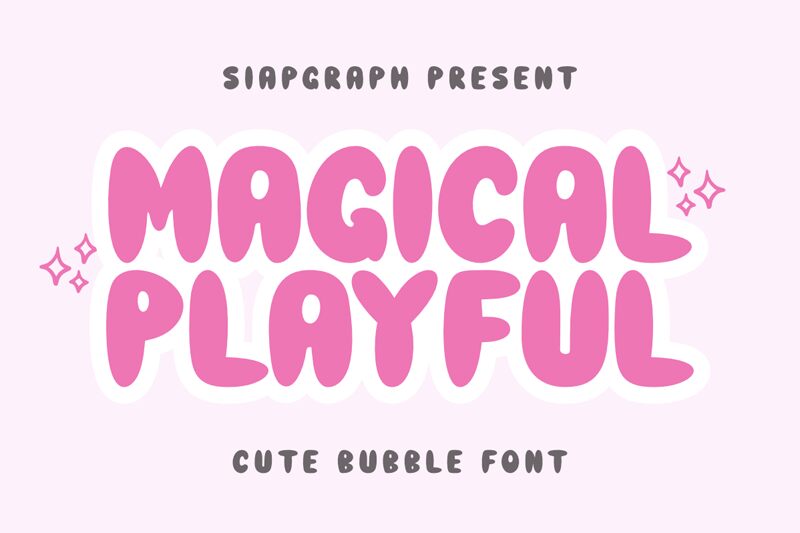
Magical Playful font by Siapgraph is a free cartoon font full of joyful energy that is almost toddler-like. This youthful font is intended to be gentle and friendly to the reader’s eye and is great for fun designs targeting a specific audience. The beautifully whimsical letters form a colorful, soft, and rounded playground of typography that is cheerful, inviting, and approachable.
Fairy-tale related projects are one of the possible platforms to use Magical playful font, whether they are event invitations or book covers. It is also great for branding, packaging, poster design, headings, and many more uses.